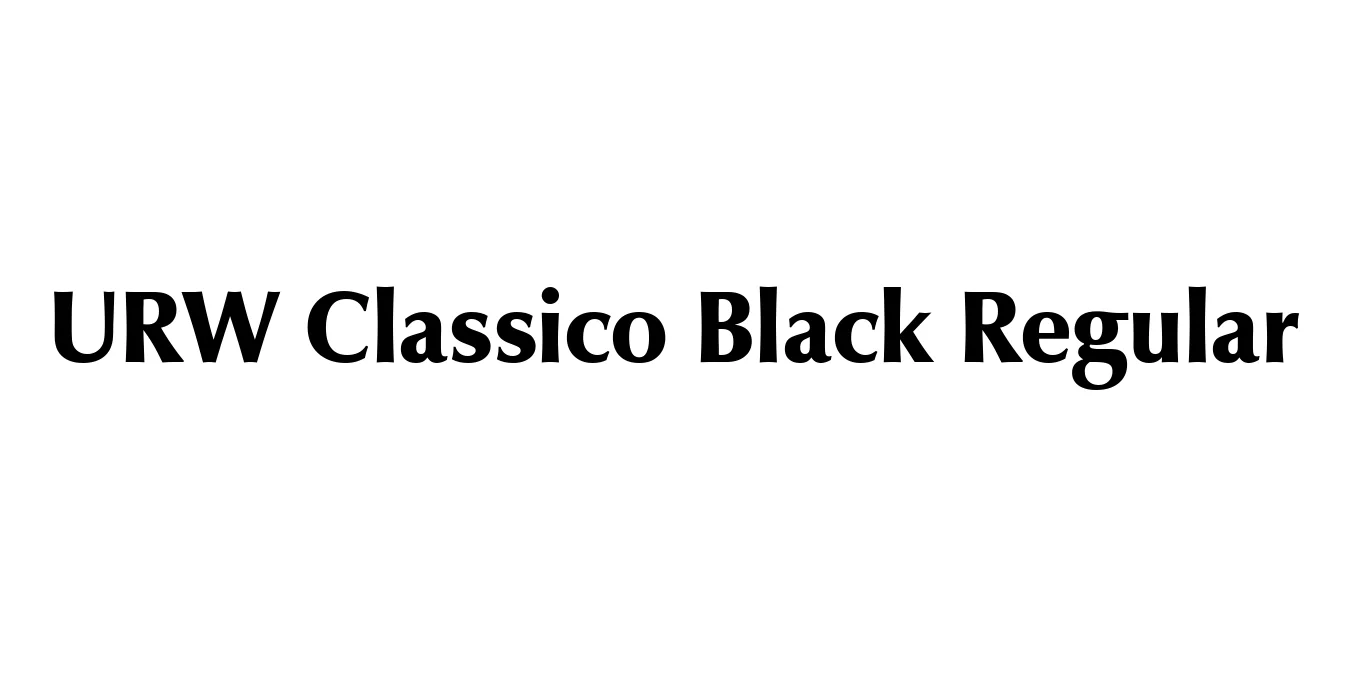
URW Classico Black Regular
Designed by Hermann Zapf
| Category | Humanist Sans Serif |
| Designer | Hermann Zapf |
| Similar Fonts | Optima, Zapf Humanist, Marconi, Crillee |
URW Classico Black Regular is a distinguished humanist sans-serif typeface that serves as a high-quality alternative to the classic Optima design. Originally conceived by the legendary typographer Hermann Zapf, this font is celebrated for its unique flared terminals that bridge the gap between traditional serif and modern sans-serif styles. The Black weight provides a powerful, high-contrast presence that maintains the elegance of its lighter counterparts while adding significant visual impact and authority to any layout.
Released by the URW Type Foundry, this digital rendition preserves the sophisticated proportions reminiscent of Roman lapidary inscriptions. Its lack of formal serifs combined with subtle stroke variations makes it exceptionally versatile for both digital and print media. It is widely recognized for its legibility and timeless aesthetic, making it a staple for designers who require a font that conveys luxury, clarity, and a strong historical foundation in a contemporary format.
URW Classico Black Regular Best Uses
Perfect for high-end luxury brands looking for a timeless and sophisticated identity.
The heavy Black weight makes for authoritative and striking titles in magazines.
Adds a premium and upscale touch to beauty and fashion product labels.
Ideal for fashion magazines and high-end lifestyle publication headers.